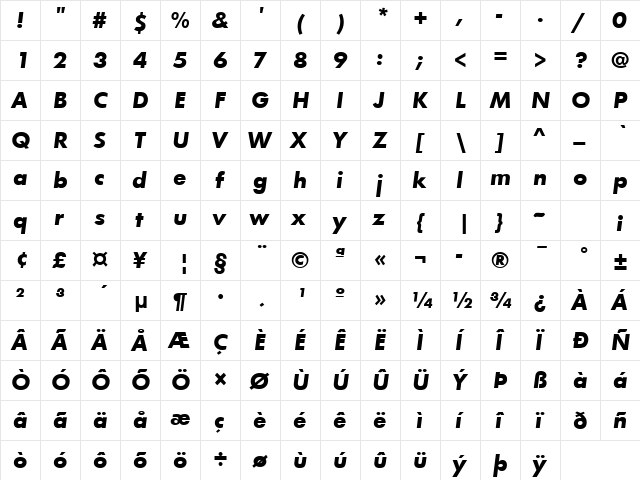
Fuschia Bold Italic
Design Context for Fuschia Typeface
Fuschia takes a measured approach to typography — its balanced proportions and neutral character make it a reliable workhorse for both digital and print work. The slanted form adds forward momentum and visual energy. The heavy weight commands attention and anchors typographic hierarchies.
Pro Tip: Try Fuschia for annotation and caption copy alongside an upright companion — the contrast in angle creates a dynamic but ordered typographic system.